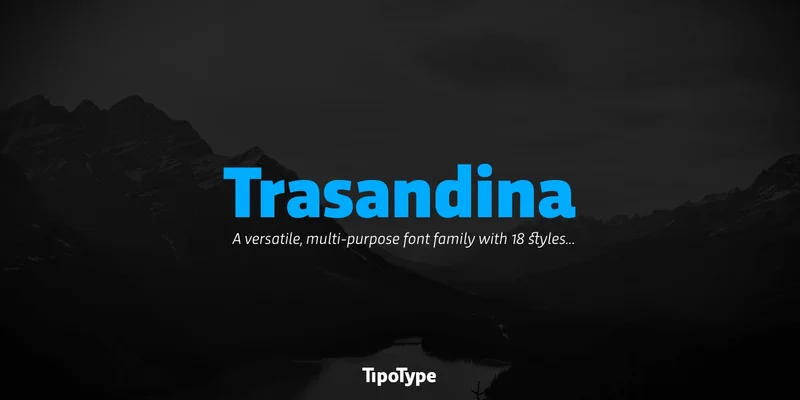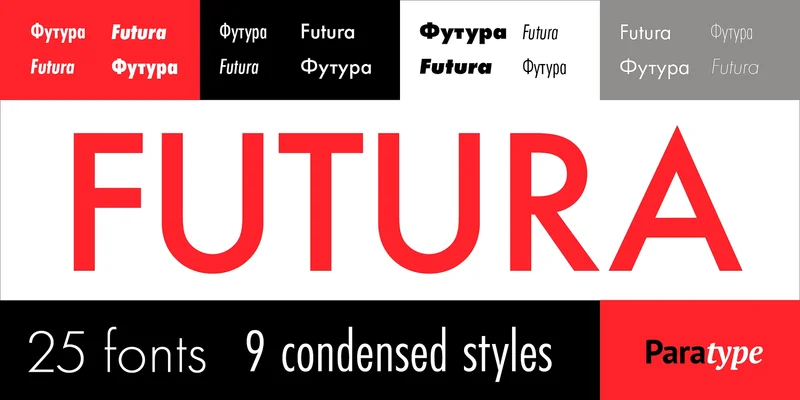
Futura is a timeless geometric sans-serif, recognized as one of the most influential typefaces of the 20th century. Its enduring relevance is evident in its widespread use across web and print media.
Trasandina is a very unique font-family: a modern, versatile, workhorse typeface with a special personality, given by the mix of humanist and geometric models, remaining far from both extremes.